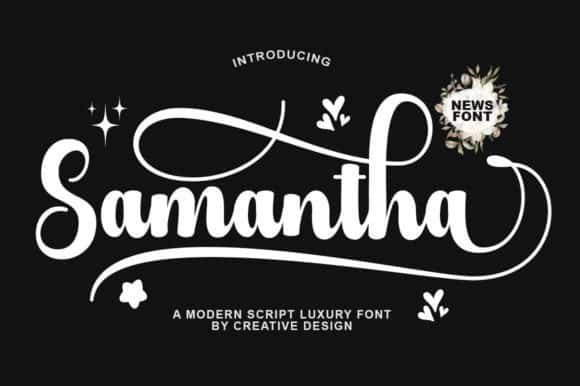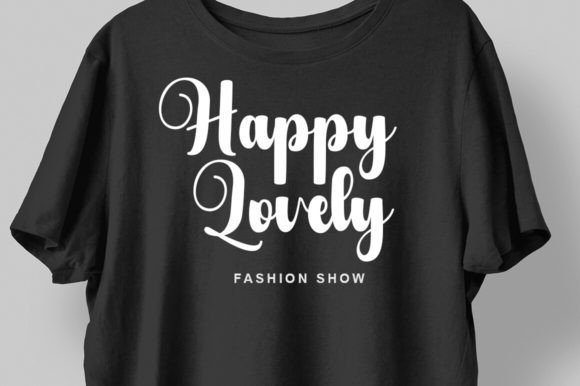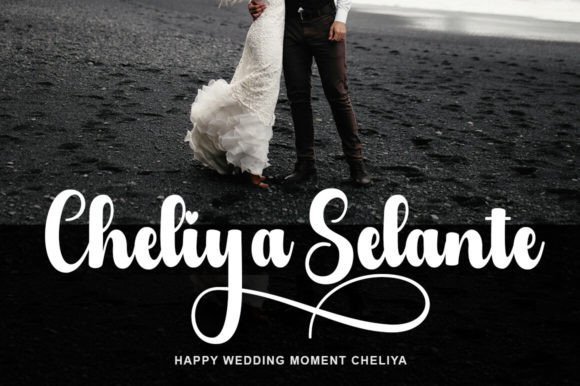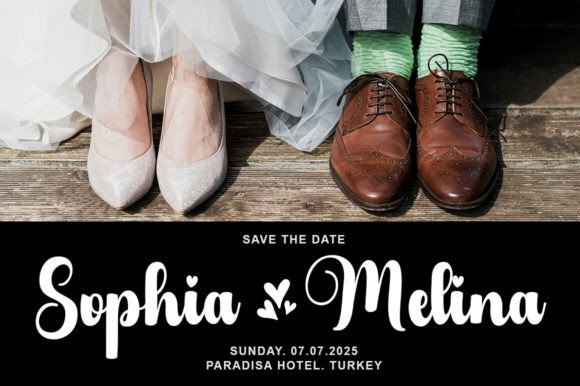
Calligraphy Fonts / FontsThis is Samantha Font 22/04/2025 - by Awais Farooq Samantha Font is a romantic and sweet calligraphy typeface with characters that dance along the baseline. It has a casual, yet elegant touch. Related Posts:The Sweet Valentine Font Download Papillon Font This is Gistale FontCarina Astrea FontThe Top Calligraphy FontThis is Cagier - Elegant Display Font The Best Vagentha Calligraphy FontMordo Elegant Modern Serif FontThe Trending Love Bubble FontThis is Proxima Nova Delightful Napkin FontRosaline Marige FontMagnisa Font DownloadThis is Madule FontLatest Bosterina Font